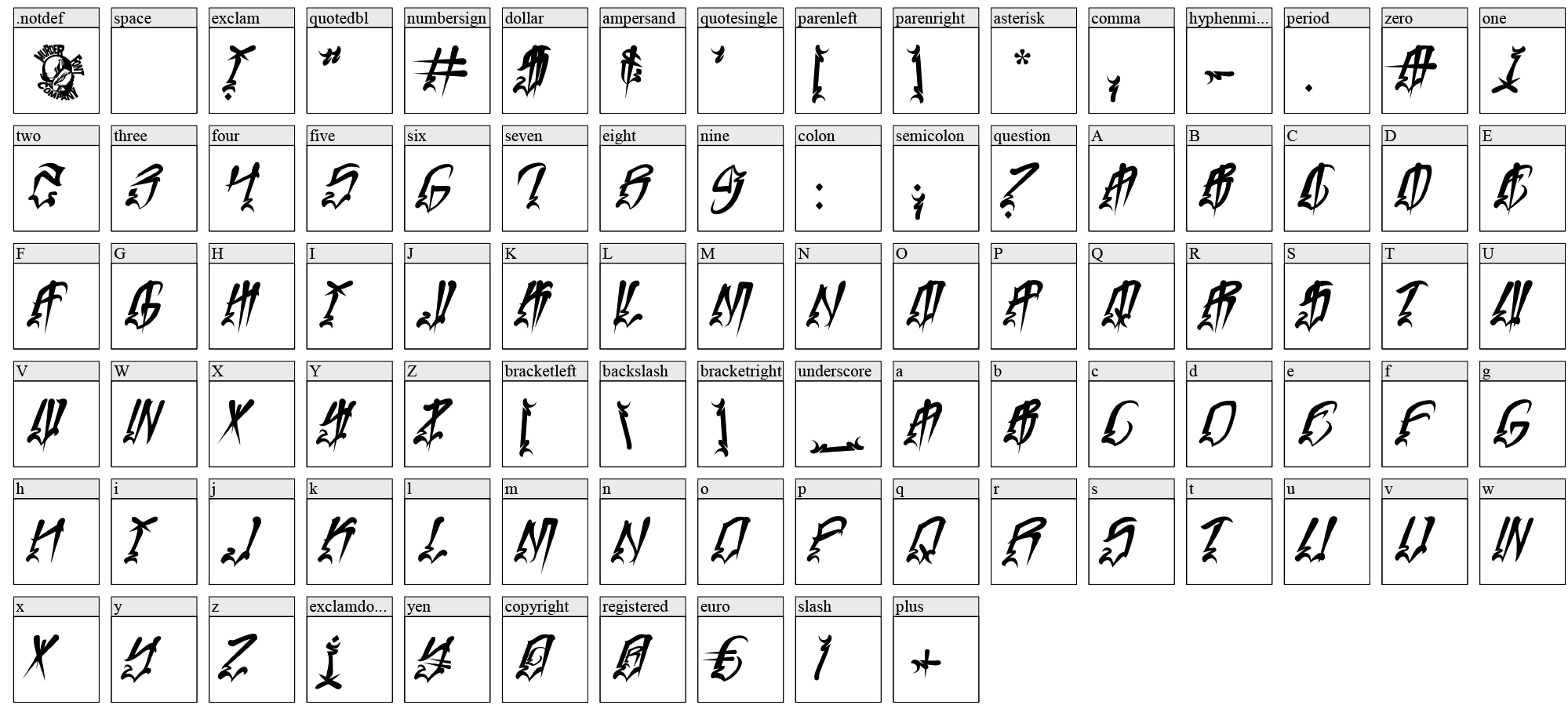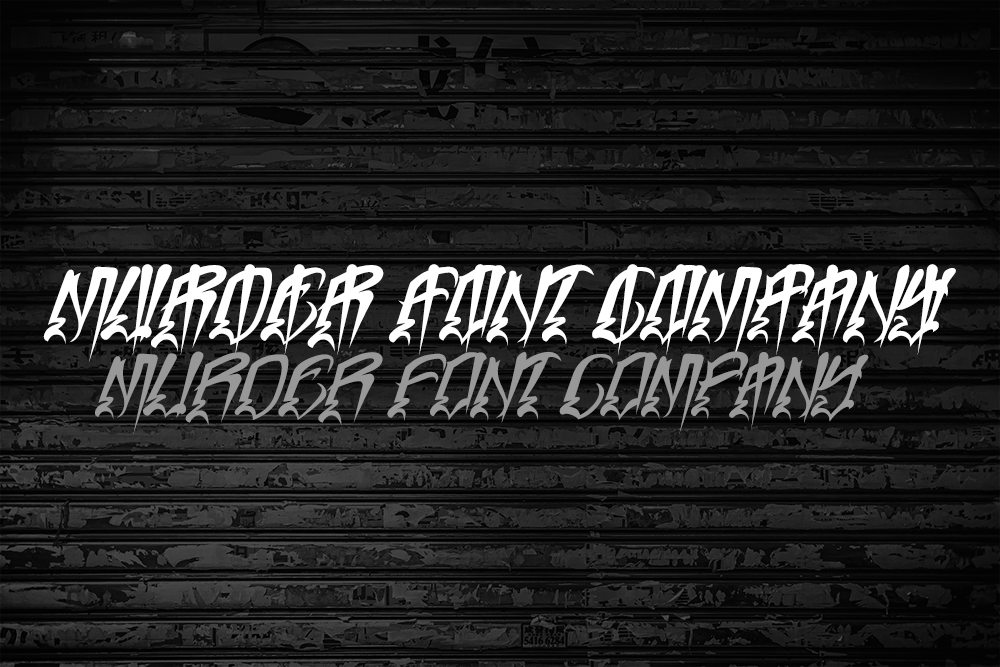
Murder Font Company is a bold and edgy font that captures the essence of tattoo and graffiti culture. The font features strong, angular letterforms with exaggerated edges and curves, giving it a distinctive look that is both stylish and rebellious. The font's dynamic energy makes it perfect for designs that require a touch of attitude and edge, such as music or fashion marketing campaigns, urban-themed events, or artistic posters. The font's bold style and sharp lines make it an ideal choice for headlines, logos, and other eye-catching displays. Whether you're creating a design for a tattoo shop or a graffiti-themed event, Murder Font Company is the perfect font to bring a touch of style and rebellion to your designs.
Font Details
Uppercase: Yes
Lowercase: Same as uppercase
Numbers: Yes
Symbols & Punctuation: Yes, limited - view image for available characters
Accents: No
Theme: Graffiti